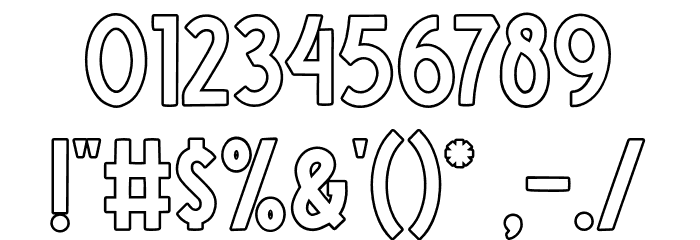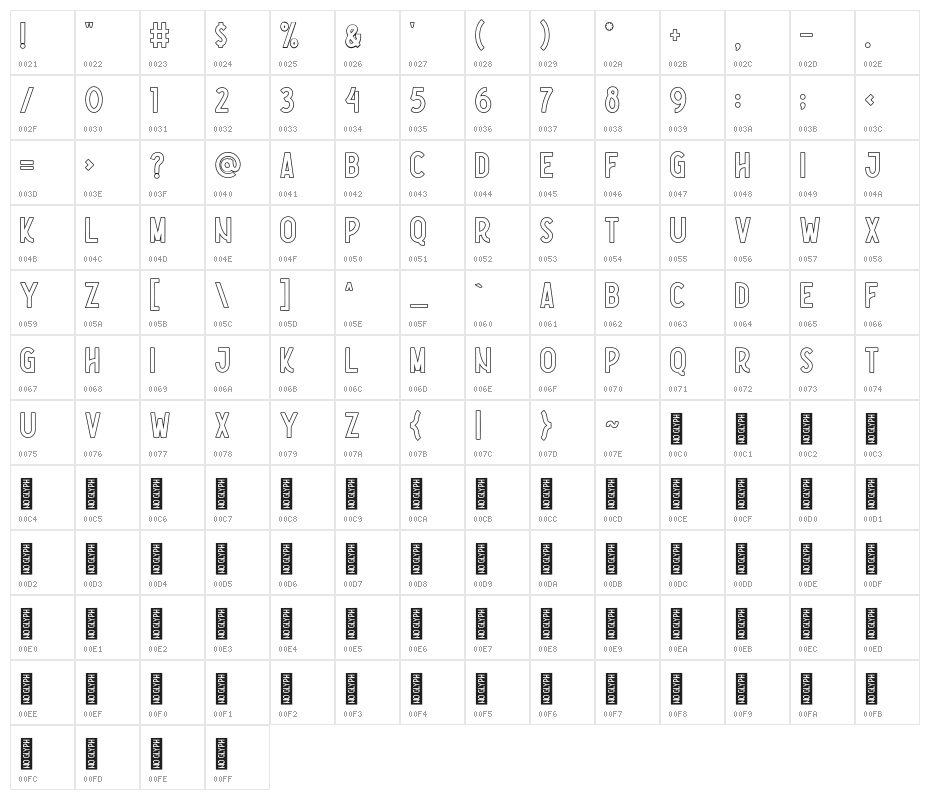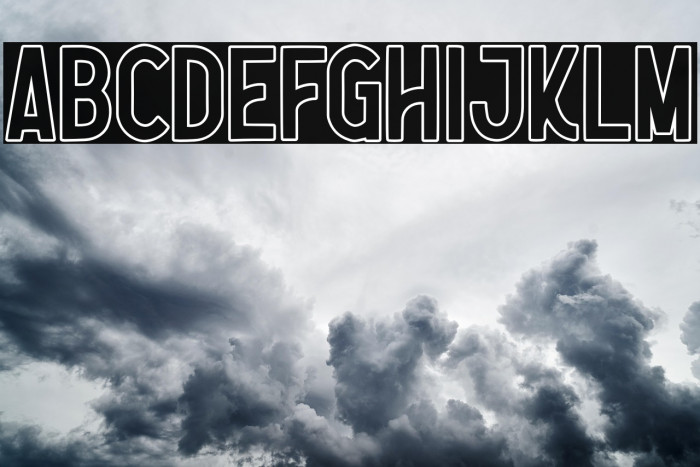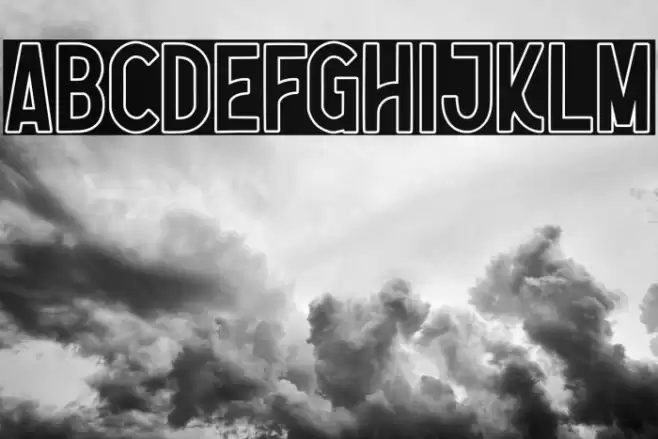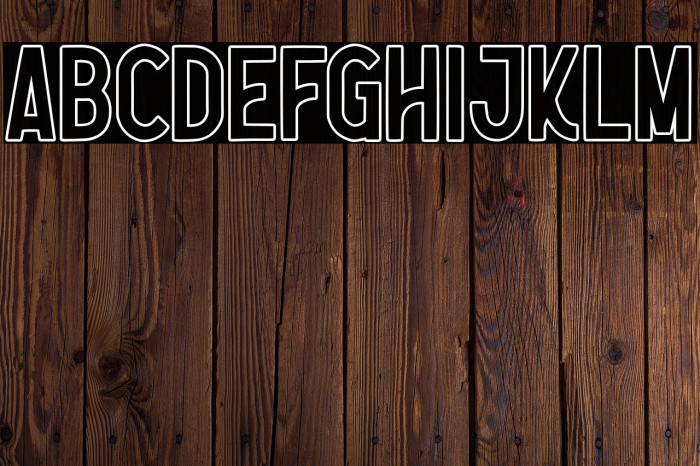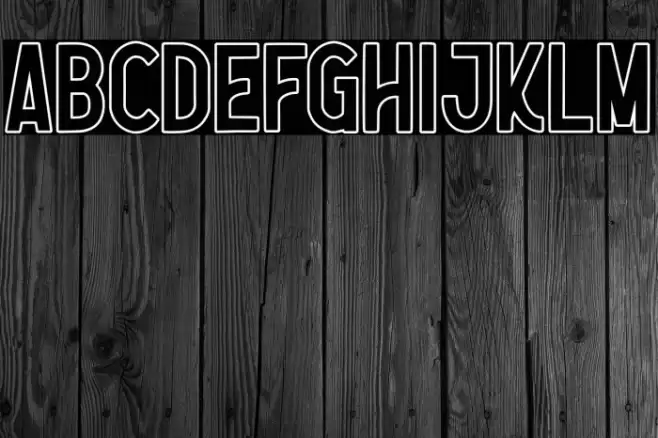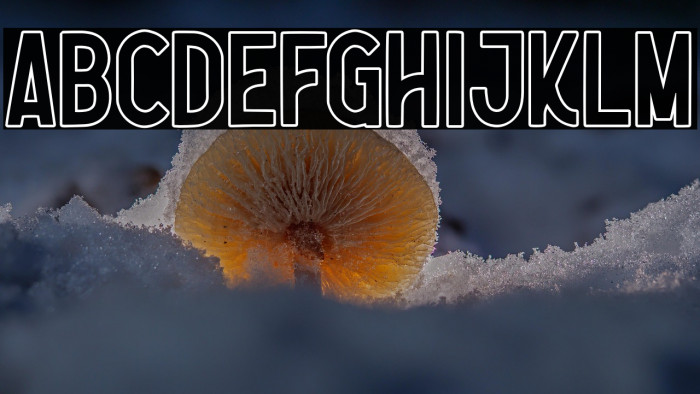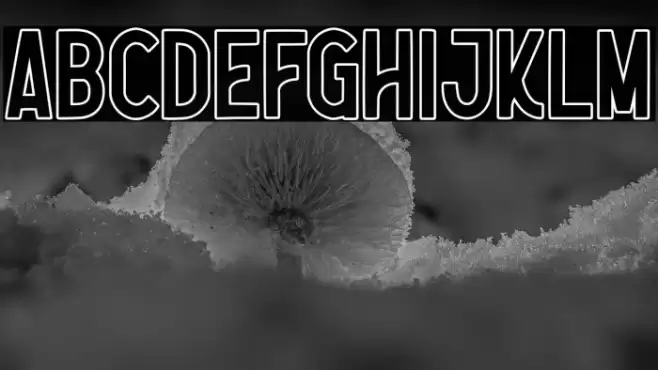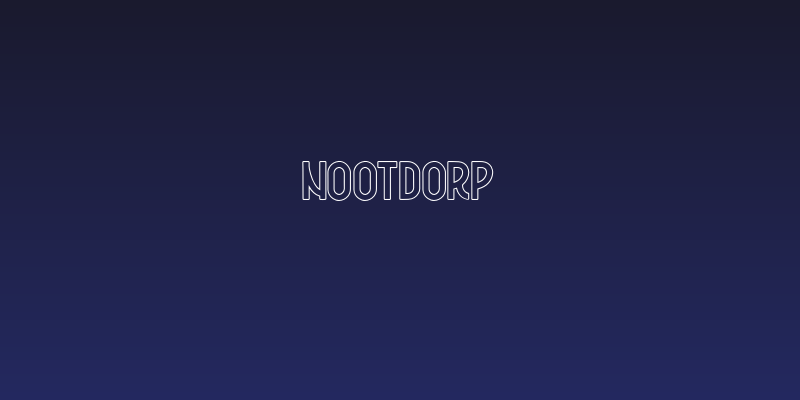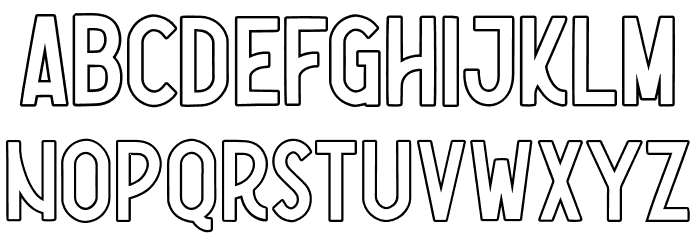
Nootdorp Font
Nootdorp Description
This font features a bold, outlined style with a modern and playful aesthetic. The characters are uppercase and lowercase letters, along with numbers and a variety of special symbols. The design is clean and geometric, with consistent line thickness throughout each character, giving it a uniform appearance. The font has a slightly condensed width, which adds to its compact and efficient look. The spacing between characters is normal, ensuring readability while maintaining a cohesive visual flow. This font is ideal for projects that require a contemporary and eye-catching typeface.
| Proposed Projects | Ideal for headlines, posters, logos, and branding materials that need a striking and modern appearance. |